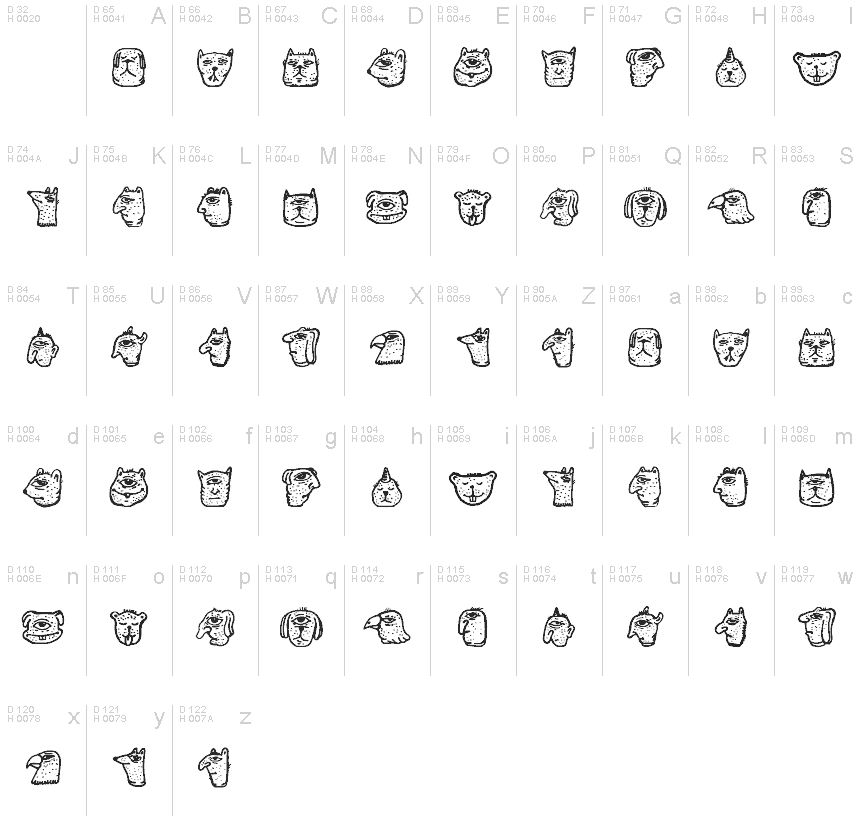
Menge is a delightfully whimsical dingbat font that exudes a playful, cartoon-inspired aesthetic. Designed by Vladimir Nikolic, this font features a delightful cast of expressive faces with distinct personalities. From the quirky cat-like creature to the endearing, wide-eyed monster, each symbol captivates the viewer with its endearing charm and individuality.
The Menge font is well-suited for a variety of design applications, from children's storybooks and greeting cards to branding and packaging. Its vibrant, hand-drawn style lends itself beautifully to projects that aim to convey a sense of playfulness, warmth, and creativity. Whether incorporated as decorative elements or used to craft innovative typography, the Menge font is sure to add a touch of endearing character to any design.